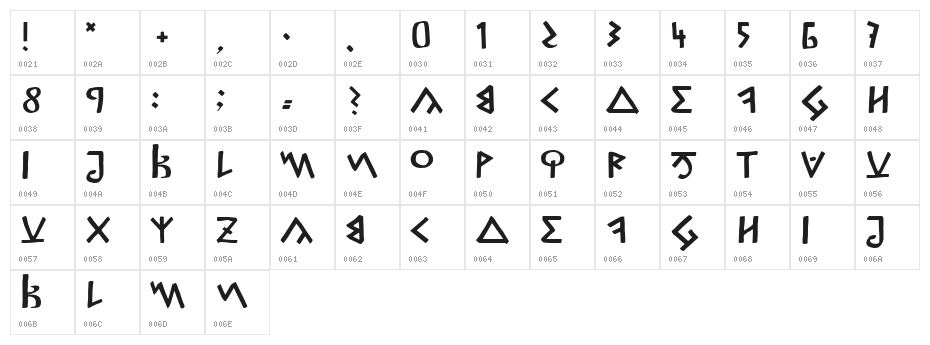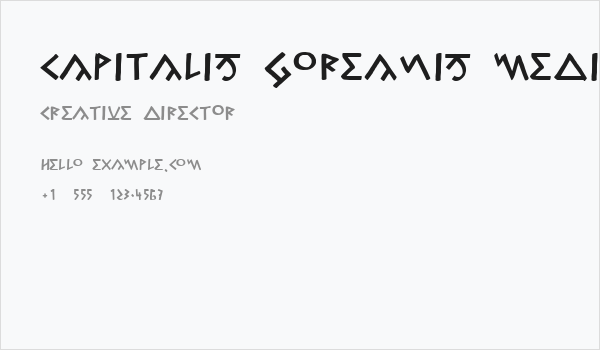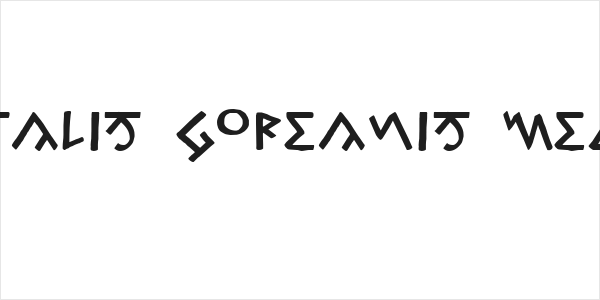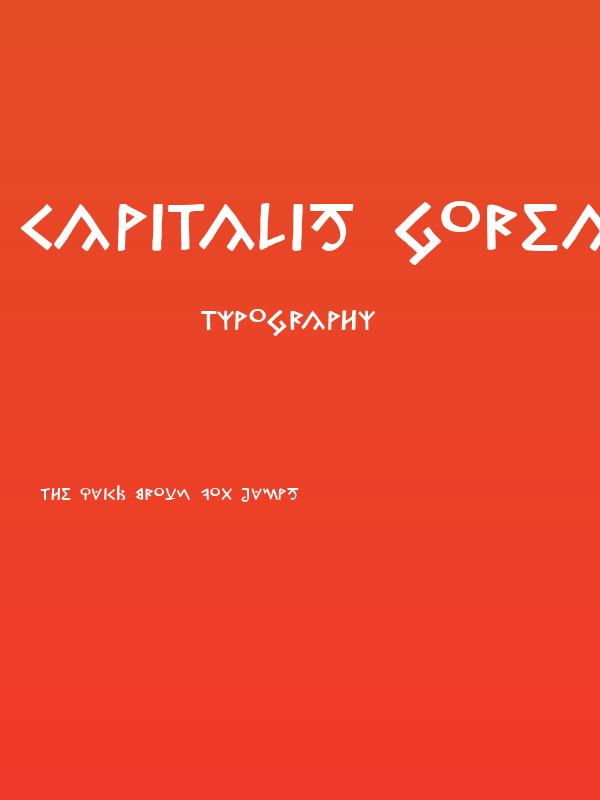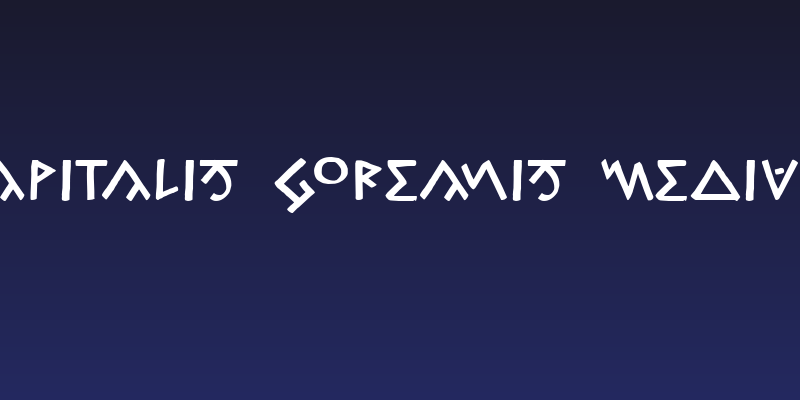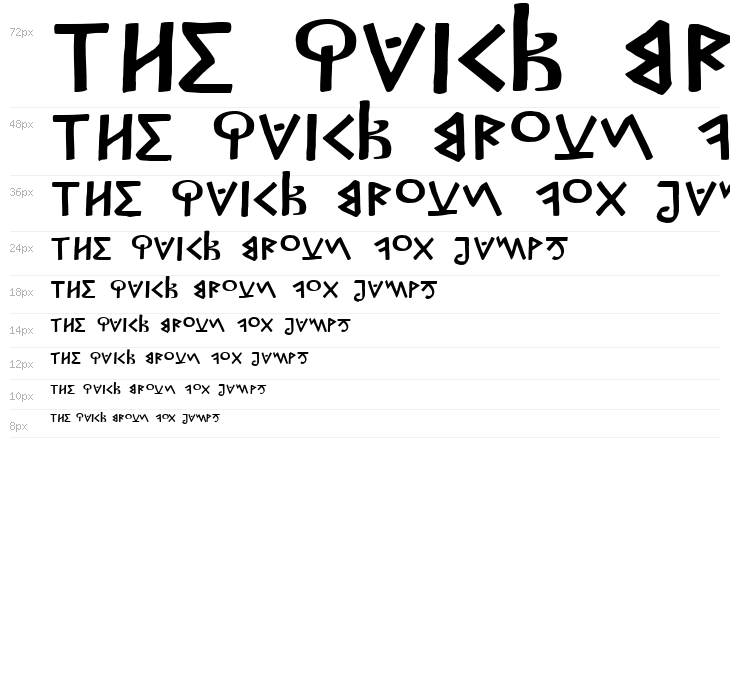
Capitalis Goreanis Medium Font
Capitalis Goreanis Medium Description
This font features a unique, angular design that draws inspiration from ancient scripts and runes. The characters are bold and geometric, with sharp edges and a distinct, hand-carved appearance. The uppercase and lowercase letters share a consistent style, emphasizing uniformity across the typeface. The numbers and special characters maintain the same aesthetic, ensuring a cohesive look throughout. The font's distinctiveness makes it suitable for projects that require a strong, historical, or mystical feel.
| Proposed Projects | Ideal for fantasy-themed designs, historical posters, game titles, or any project seeking a mystical or ancient aesthetic. |